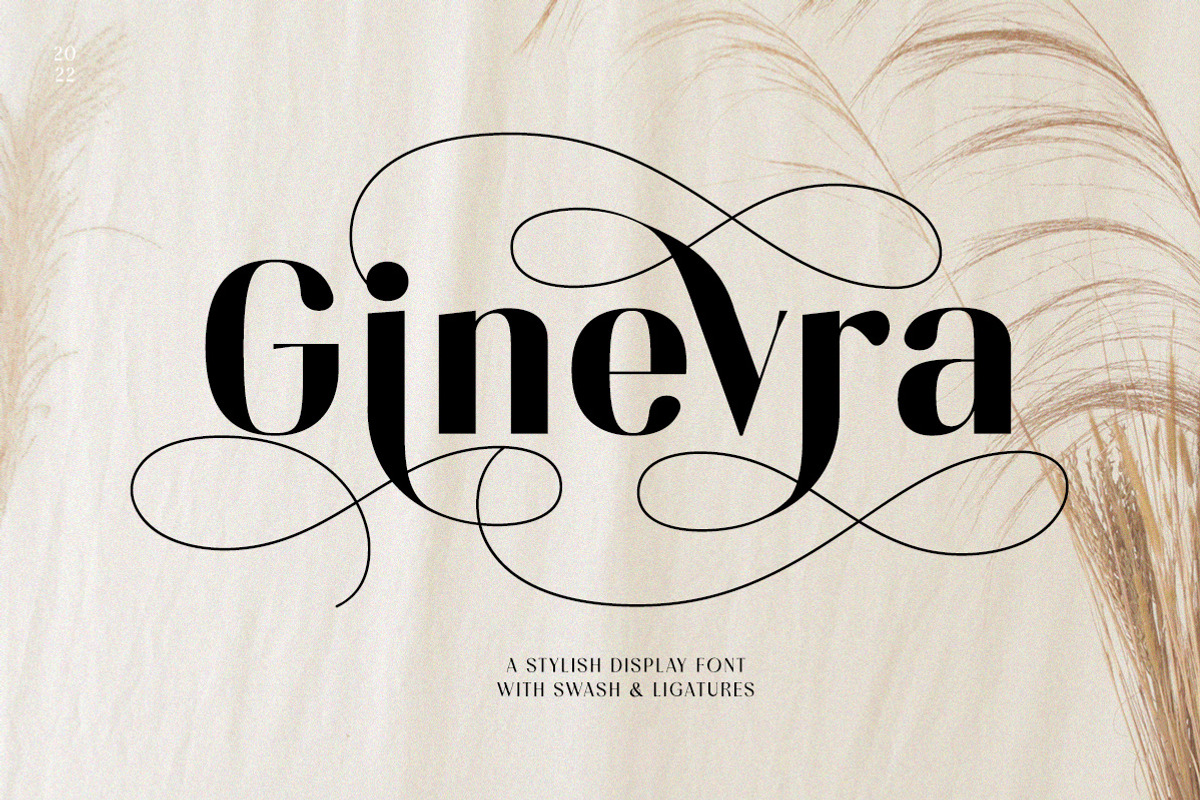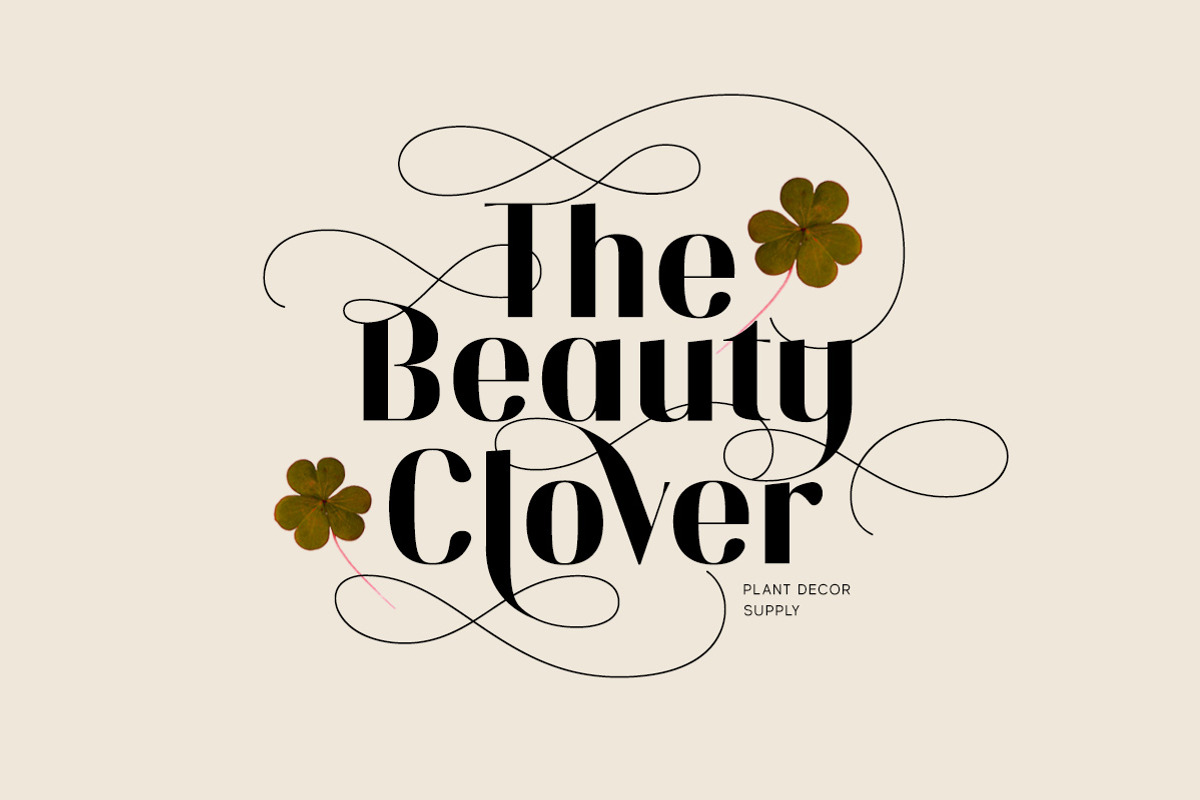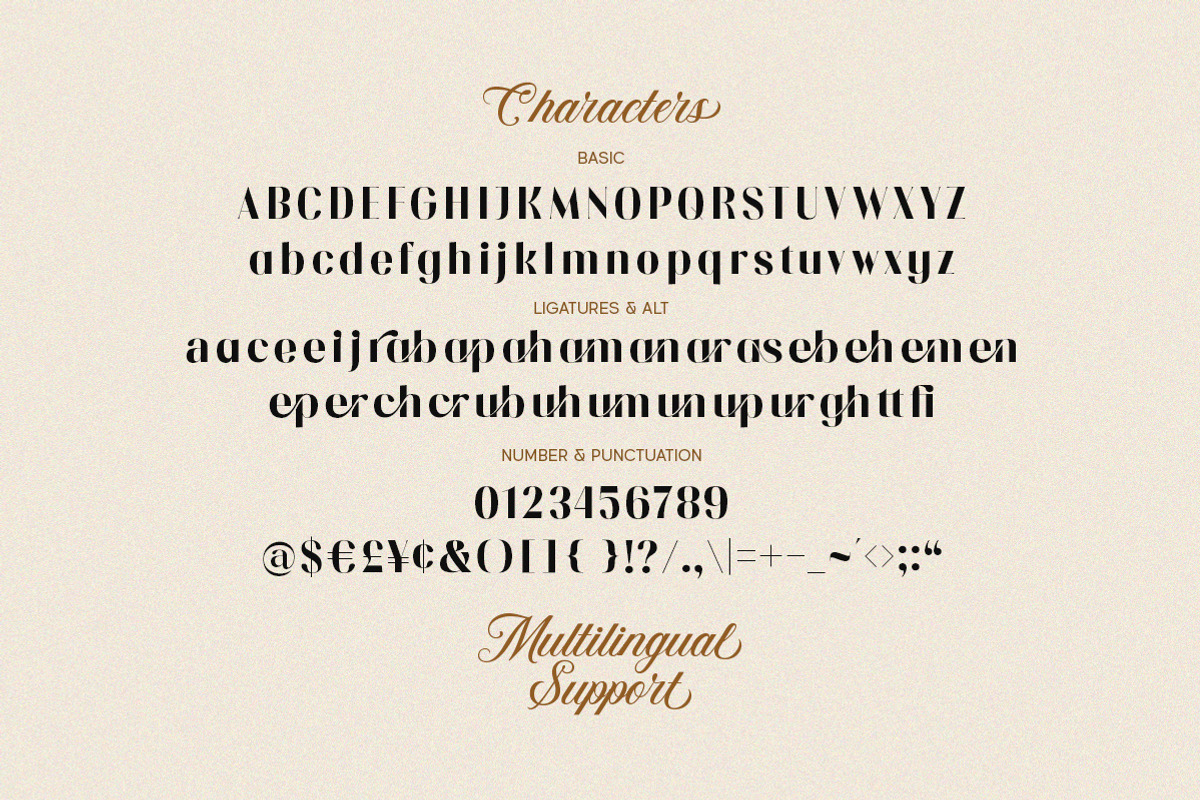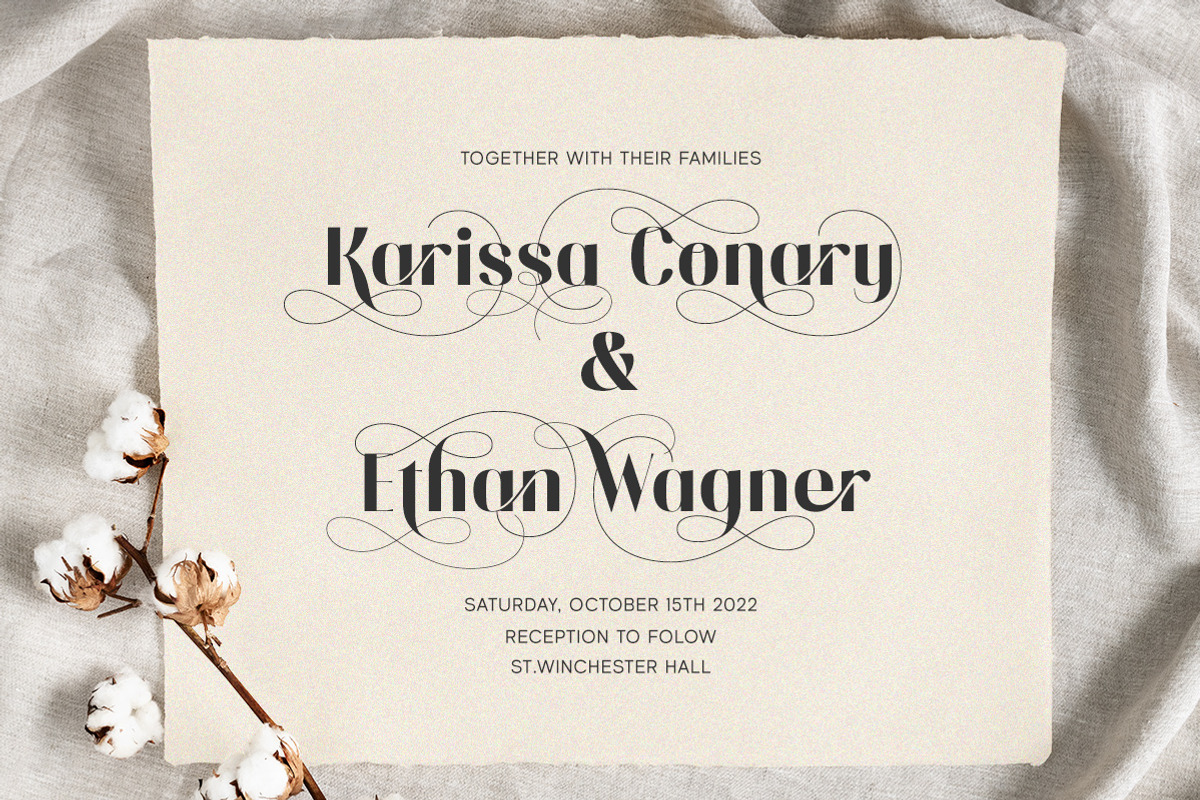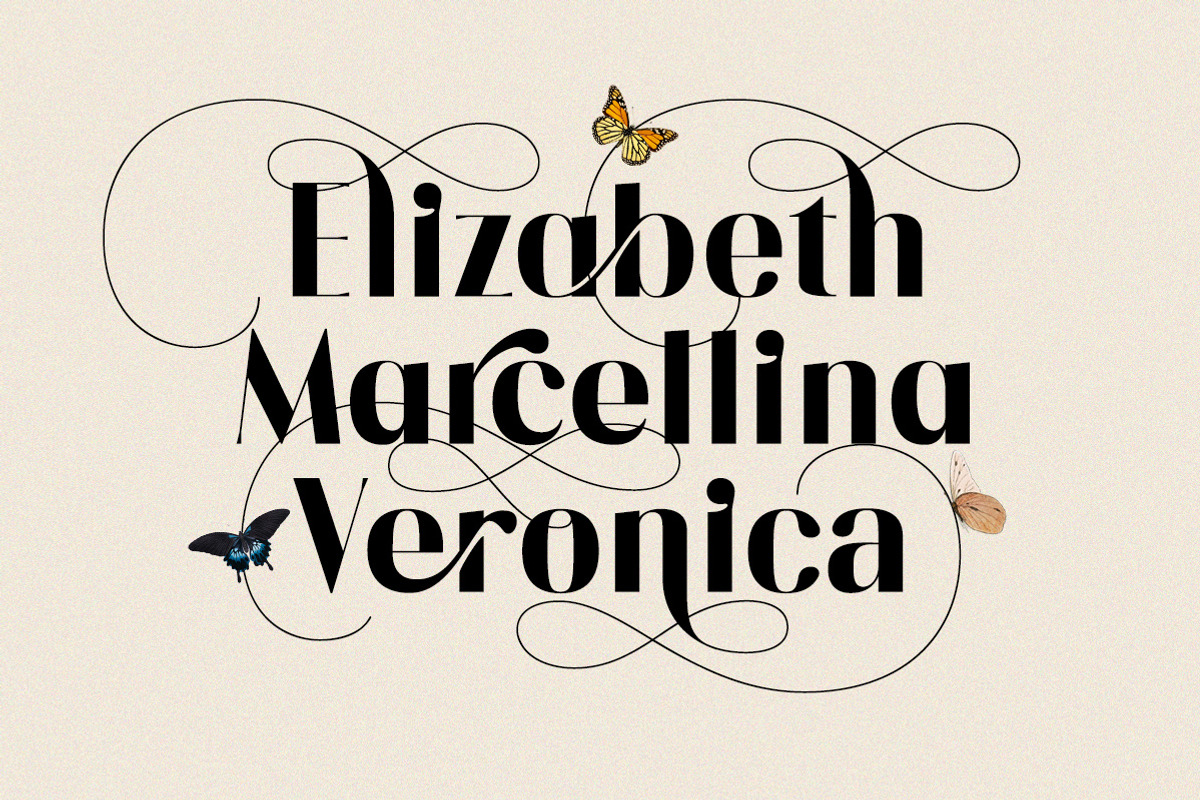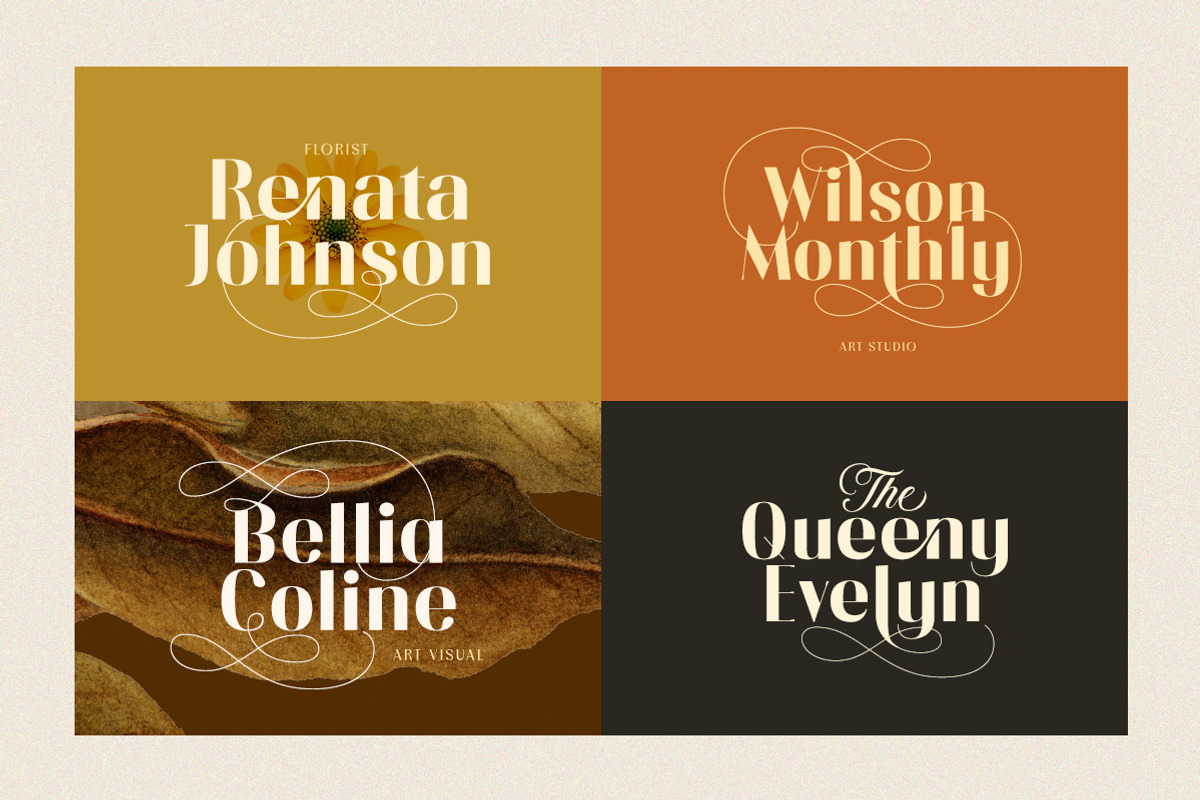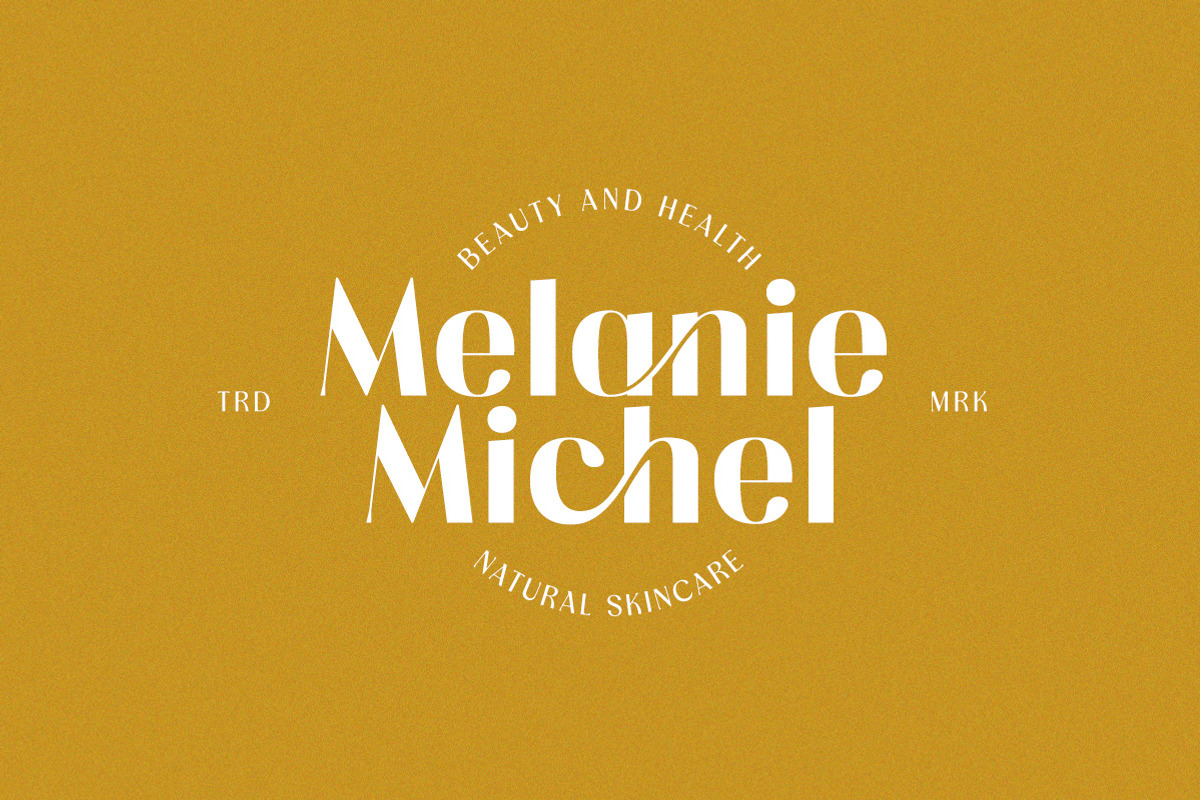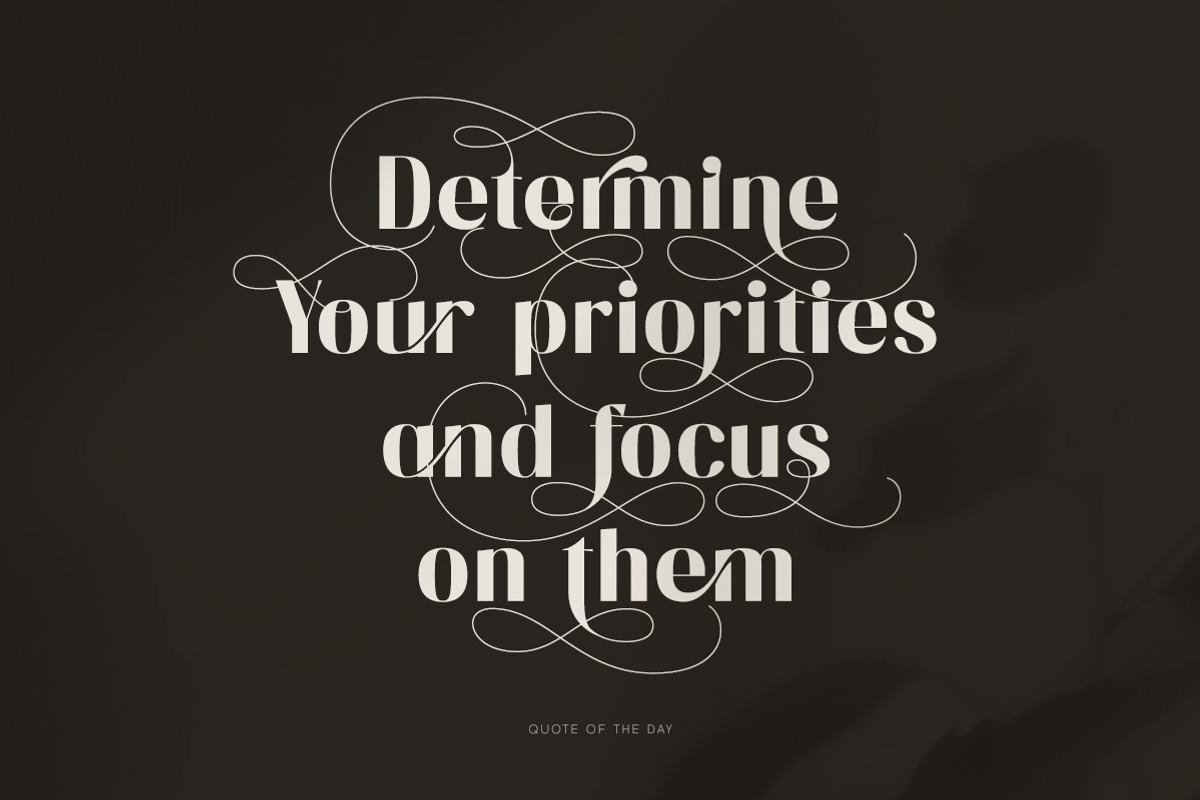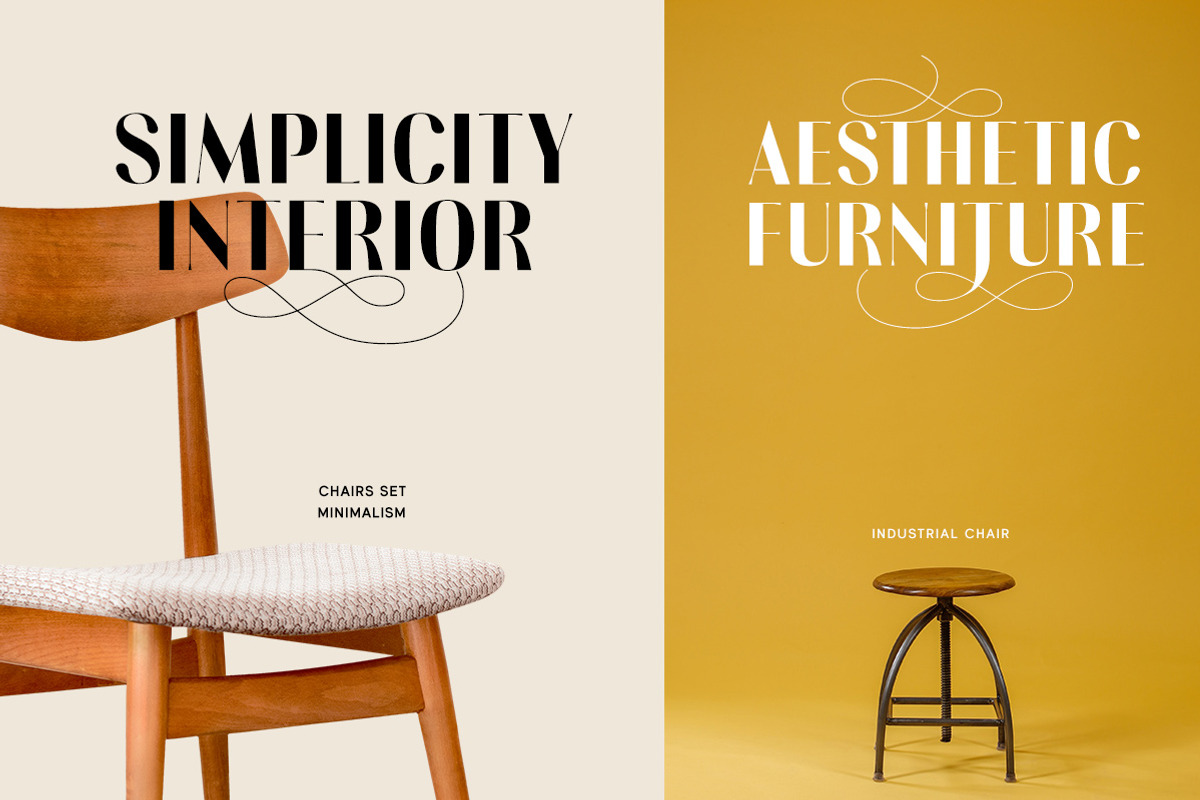
Ginevra - Stylish Display Font
Ginevra is a sophisticated sans serif with swashes and ligatures. It has unique high contrast between the body of the letters with the swashes which makes it different than the others. Perfectly to be applied to the other various formal forms such as invitations, labels, logos, magazines, books, greeting / wedding cards, packaging, fashion, make up, stationery, novels, labels or any type of advertising purpose.
- swashes & ligatures